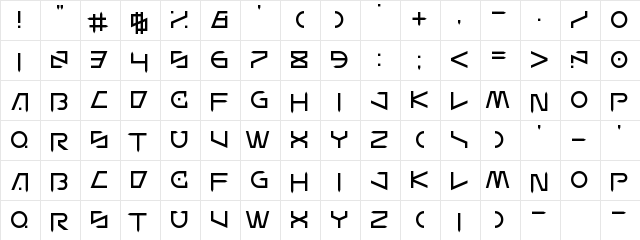
Wander Z Regular
Design Context for Wander Z Typeface
Wander Z offers clean, dependable letterforms without strong stylistic allegiance, making it a practical choice for designers who need flexibility.